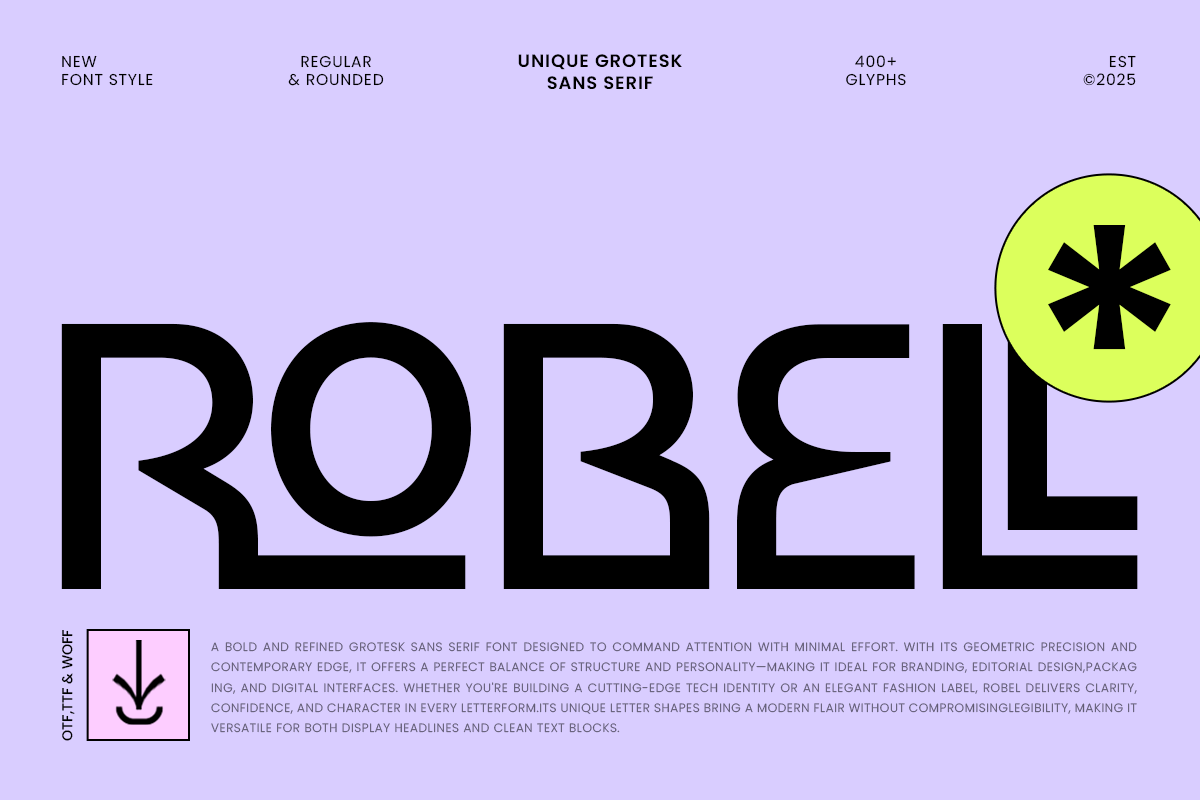
Robell
-Unique Grotesk Sans SerifRobell Font - Unique Grotesk Sans Serif
ROBELL is a unique grotesk sans serif font that combines timeless structure with modern design sensibility. Built for clarity, balance, and versatility, it’s ideal for branding, editorial layouts, corporate identities, and digital interfaces that demand a professional yet distinctive look.
Featuring subtle geometric construction and refined proportions, ROBELL delivers a perfect blend of functionality and personality. Its clean lines and confident stance make it suitable for a wide range of applications—from minimalist tech brands to luxury product packaging and creative studio identities.
Whether used for headlines, logos, or body text, ROBELL maintains exceptional readability and style. Its distinctive character makes it stand out in corporate design systems, modern UI layouts, and editorial publications seeking a bold, contemporary tone.
ROBELL – Unique Grotesk Sans Serif Features
Unique and versatile grotesk sans serif design
Perfect for logos, branding, editorial, and corporate layouts
Clean geometric letterforms with high legibility
Modern yet timeless aesthetic suitable for digital and print use
Great for web design, posters, signage, and visual identities
OpenType features for advanced typography flexibility
Create a refined and professional identity with ROBELL – the ultimate grotesk sans serif for unique, modern, and corporate design. ✨